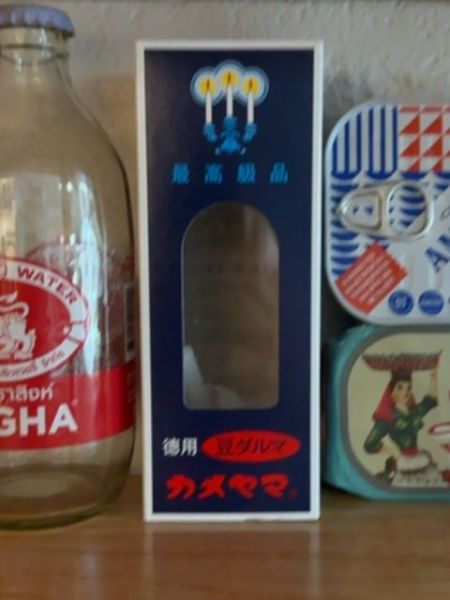
カメヤマ
A traditional Japanese candle used for ceremonial or decorative purposes.
The typography features a combination of traditional Japanese kanji and katakana script. The font used is bold and clear, providing a strong visual impact against the dark background. The layout is balanced, emphasizing readability while maintaining an aesthetic appeal.
The packaging is a rectangular box with a deep blue color, featuring a window cut-out to showcase the product inside. It has a simple and elegant design with minimalistic illustrations and Japanese text.
- Popular for its quality and long burn time.
- Often used in Japanese rituals and temples.
- Known for being smokeless and dripless.